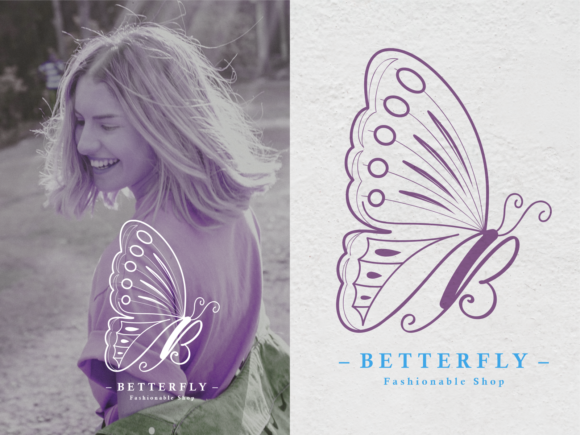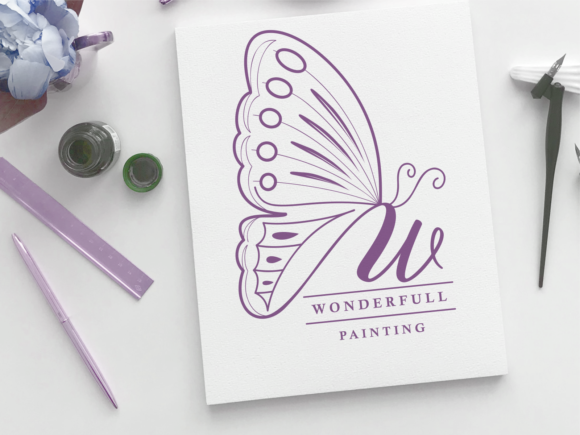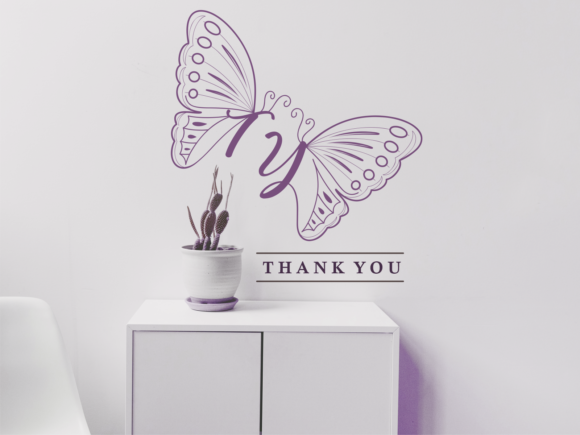
A Pair of Butterflies Font: Where Whimsy Meets Elegance
Have you ever been browsing through a craft store, surrounded by colorful fabrics and glittery trinkets, when you stumble upon a beautiful font that sparks your creativity? That’s exactly what happened to me when I discovered A Pair of Butterflies Font – an enchanting decorative font that instantly transported me to a world of whimsy and wonder.
This lovely font is designed to add a touch of magic to your designs, featuring delicate butterfly ornaments that can elevate any project from ordinary to extraordinary. Whether you’re planning a wedding, creating social media posts, or crafting beautiful stationery, A Pair of Butterflies Font is the perfect addition to your design arsenal.
As a designer, you know how valuable it is to have a versatile and unique font at your disposal. With its elegant style and playful charm, A Pair of Butterflies Font is sure to inspire your creativity and help you create stunning designs that leave a lasting impression.
A Pair of Butterflies Font Key Features
- Font Style: Script, Calligraphy
- Size: 200 glyphs, 500 characters
- Resolution: Supports high-resolution displays (Retina, 4K)
- Unique Characteristics: Whimsical, elegant, and playful script font with a romantic touch, perfect for wedding invitations, greeting cards, and other special occasions
- Language Support: Latin, Cyrillic, Greek, and many other languages
A Pair of Butterflies Font Review
A Pair of Butterflies Font is a charming, whimsical script font that’s perfect for adding a touch of playfulness to your designs. ✨ I love how it captures the feeling of delicate wings and gentle movement. It’s ideal for projects that need a soft, romantic vibe.
Here are some of the things I like about A Pair of Butterflies Font:
- ✨ Unique, hand-drawn design that’s full of character
- ✨ Great for titles, quotes, and other text that needs a touch of elegance
- ✨ Works well for projects that need a vintage or antique feel
However, I do have some reservations about A Pair of Butterflies Font:
- ⚠️ Limited versatility – it’s not suitable for large blocks of text or complex typography
- ⚠️ May be difficult to read at small font sizes due to its script style
Overall, I think A Pair of Butterflies Font is a beautiful addition to any designer’s toolkit. While it has some limitations, it’s perfect for projects that need a touch of whimsy and romance. With careful use, it can add a unique and eye-catching element to your designs.
A Pair of Butterflies Font is ideal for:
- Children’s party decorations and materials
- Food and beverage branding (e.g., ice cream shops, bakeries)
- Any design that requires a whimsical and playful touch
For optimal results, use A Pair of Butterflies Font in combination with bright, pastel colors and delicate illustrations.
Alternatives to A Pair of Butterflies Font
Great Vibes Font is a modern, elegant script font that is perfect for creating a sense of playfulness and whimsy. It is ideal for use in branding, advertising, and editorial design where a touch of sophistication is required.
Compared to A Pair of Butterflies Font, Great Vibes Font is more formal and less whimsical, making it a better choice for professional or corporate design projects. However, it still retains a sense of playfulness that makes it suitable for creative and artistic designs.
Carolyna Pro Font is a beautiful, handwritten script font that is perfect for creating a sense of elegance and sophistication. It is ideal for use in branding, advertising, and editorial design where a touch of luxury is required.
Compared to A Pair of Butterflies Font, Carolyna Pro Font is more refined and less quirky, making it a better choice for high-end design projects. However, it still retains a sense of personality that makes it suitable for creative and artistic designs.